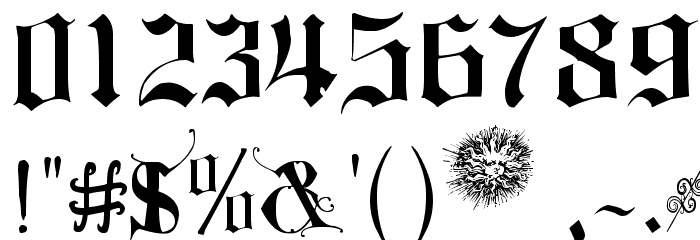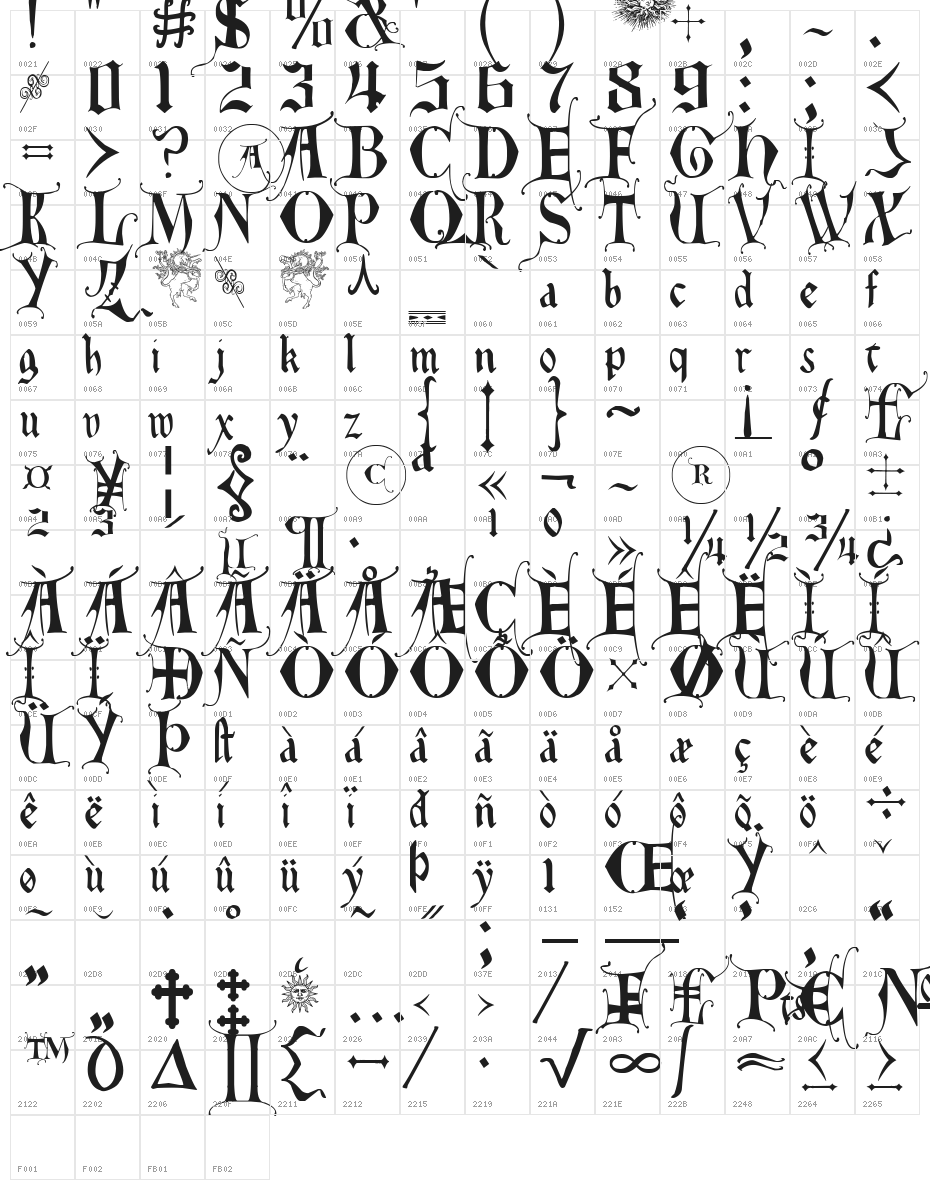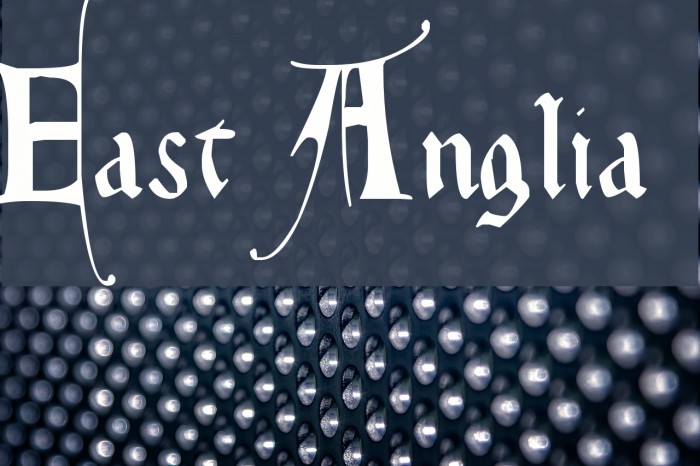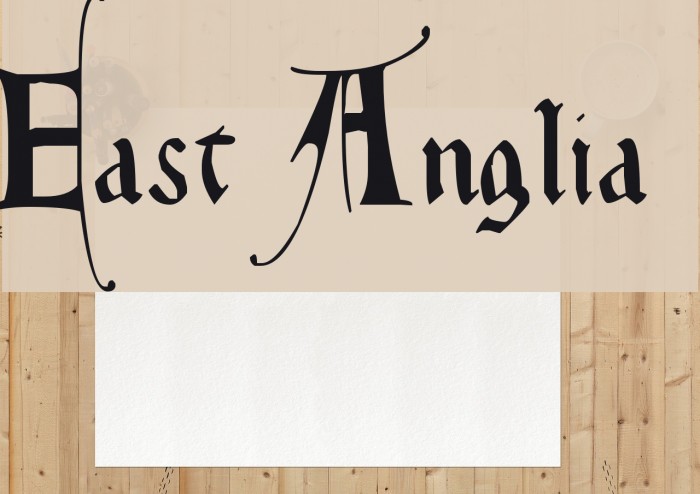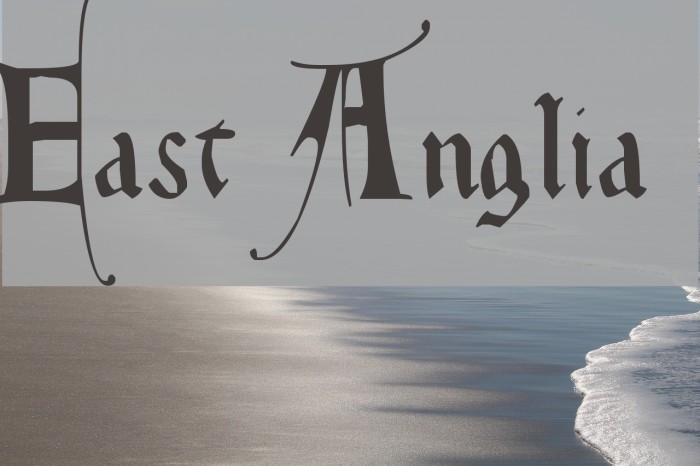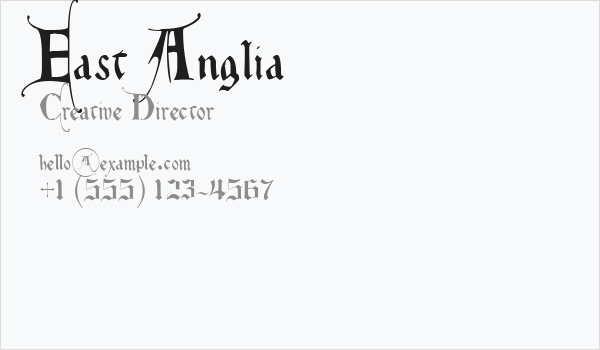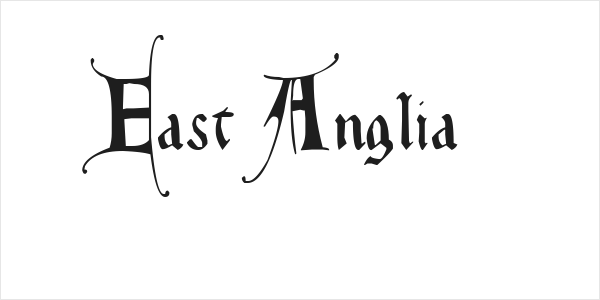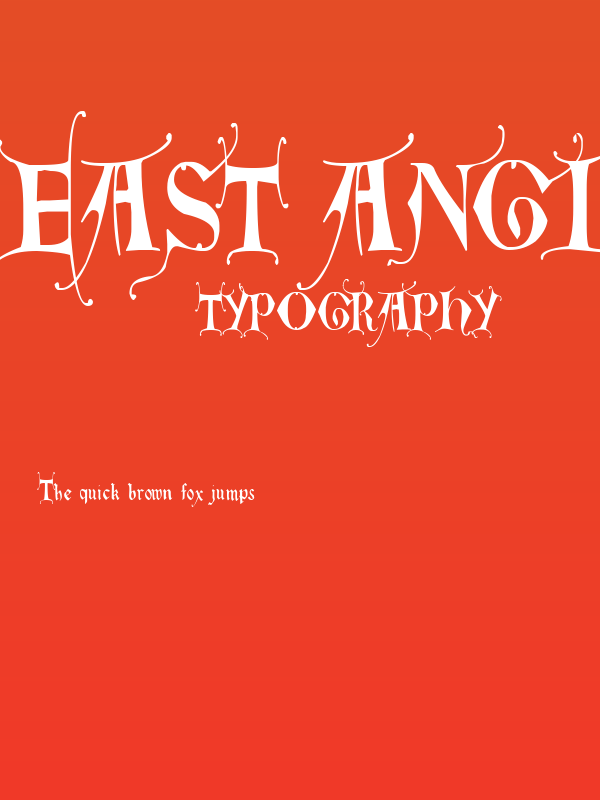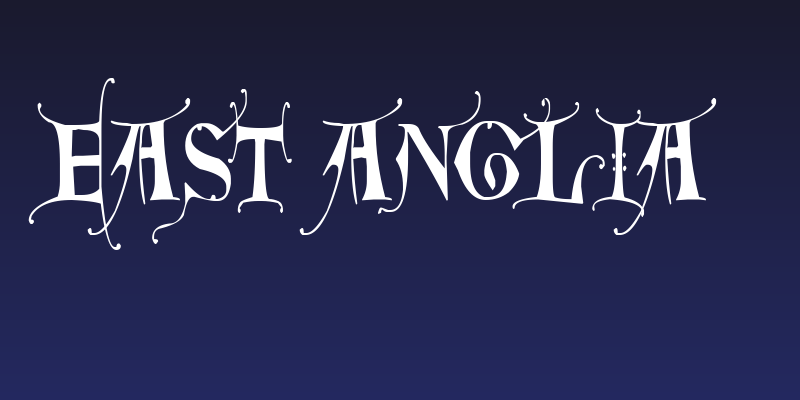
East Anglia Font
East Anglia Description
This font is a striking example of blackletter style, characterized by its intricate and ornate design. The uppercase letters feature elaborate flourishes and sharp angles, giving them a dramatic and gothic appearance. The lowercase letters maintain a consistent style, with bold strokes and pointed serifs that enhance the medieval aesthetic. Numbers and special characters are equally decorative, with unique embellishments that add to the font's overall complexity. The font's high contrast between thick and thin strokes contributes to its bold and authoritative presence, making it ideal for projects that require a historical or traditional feel.
| Overall Style | Gothic, Decorative |
| Proposed Projects | Suitable for historical documents, wedding invitations, book covers, and branding that requires a gothic or medieval touch. |